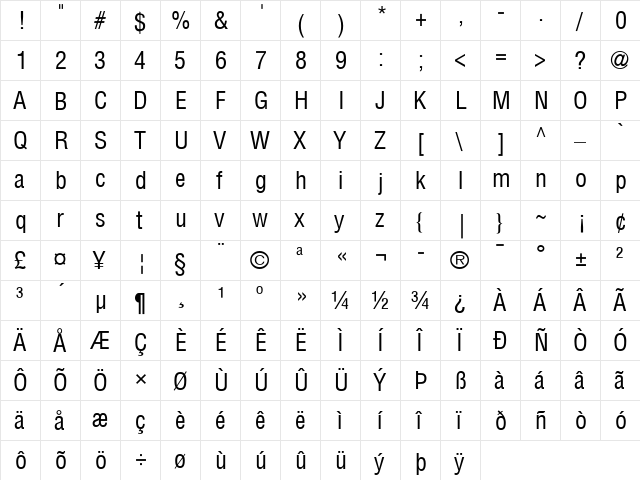
Helvetica Condensed Regular Font Preview
Helvetica Condensed Regular
Design Context for Helvetica Condensed Typeface
Helvetica Condensed takes a measured approach to typography — its balanced proportions and neutral character make it a reliable workhorse for both digital and print work. The condensed width makes it efficient for tight spaces without sacrificing legibility.